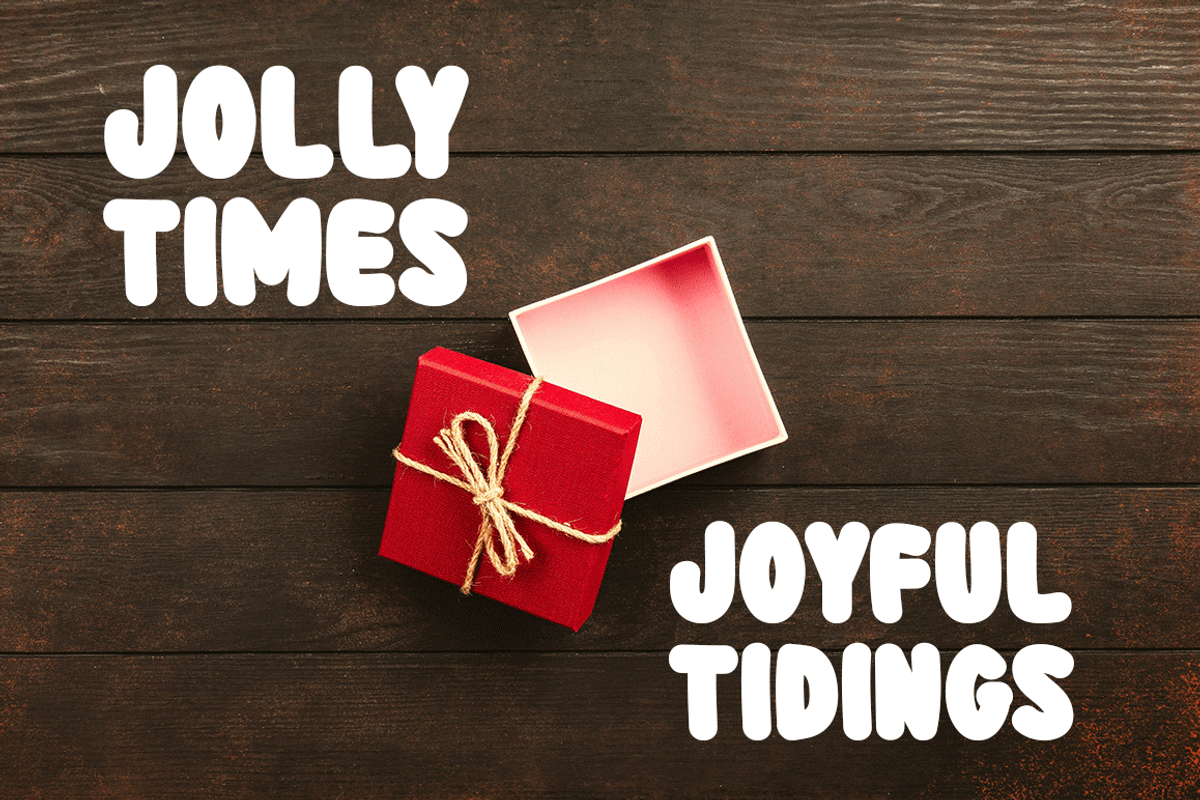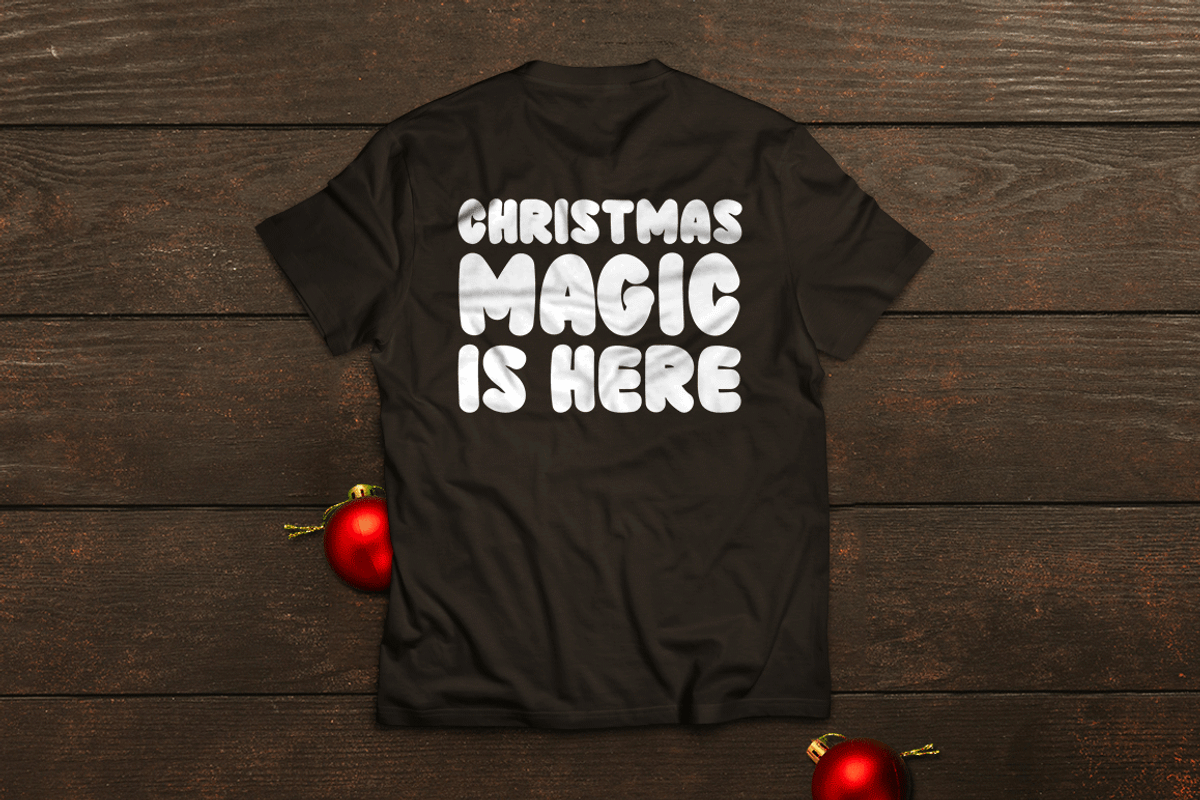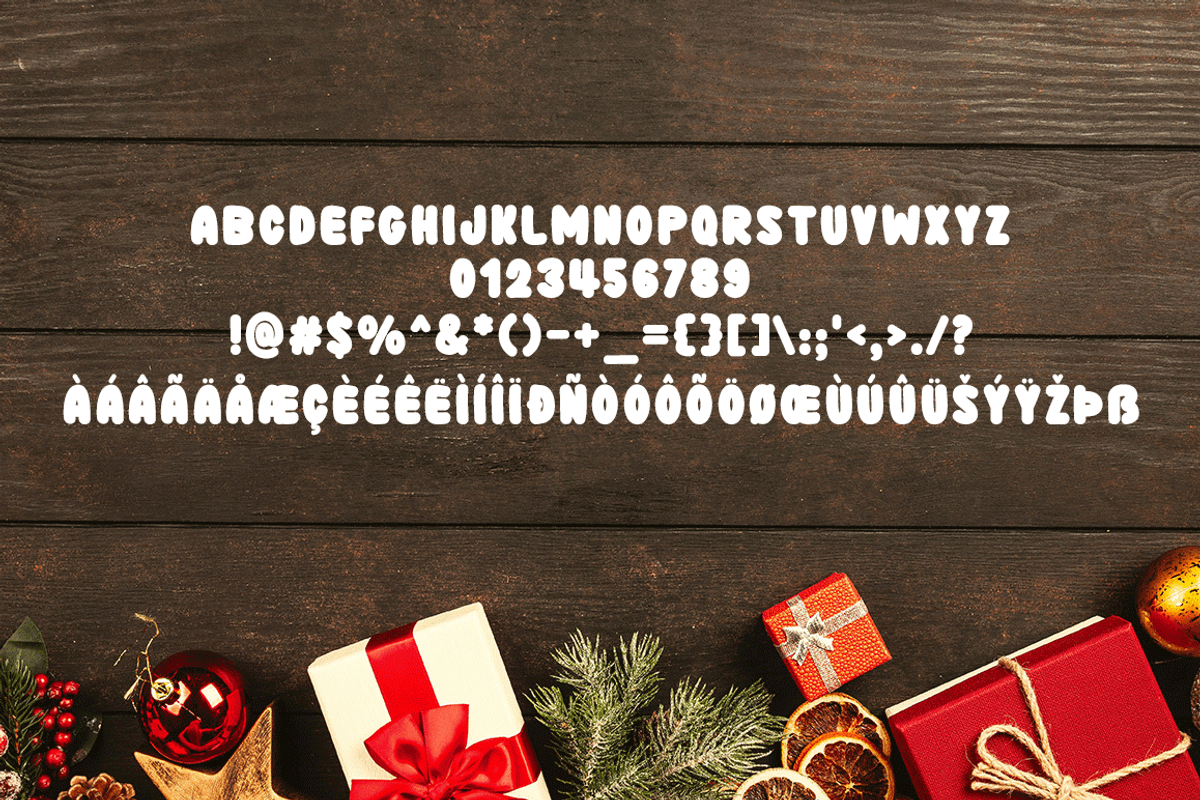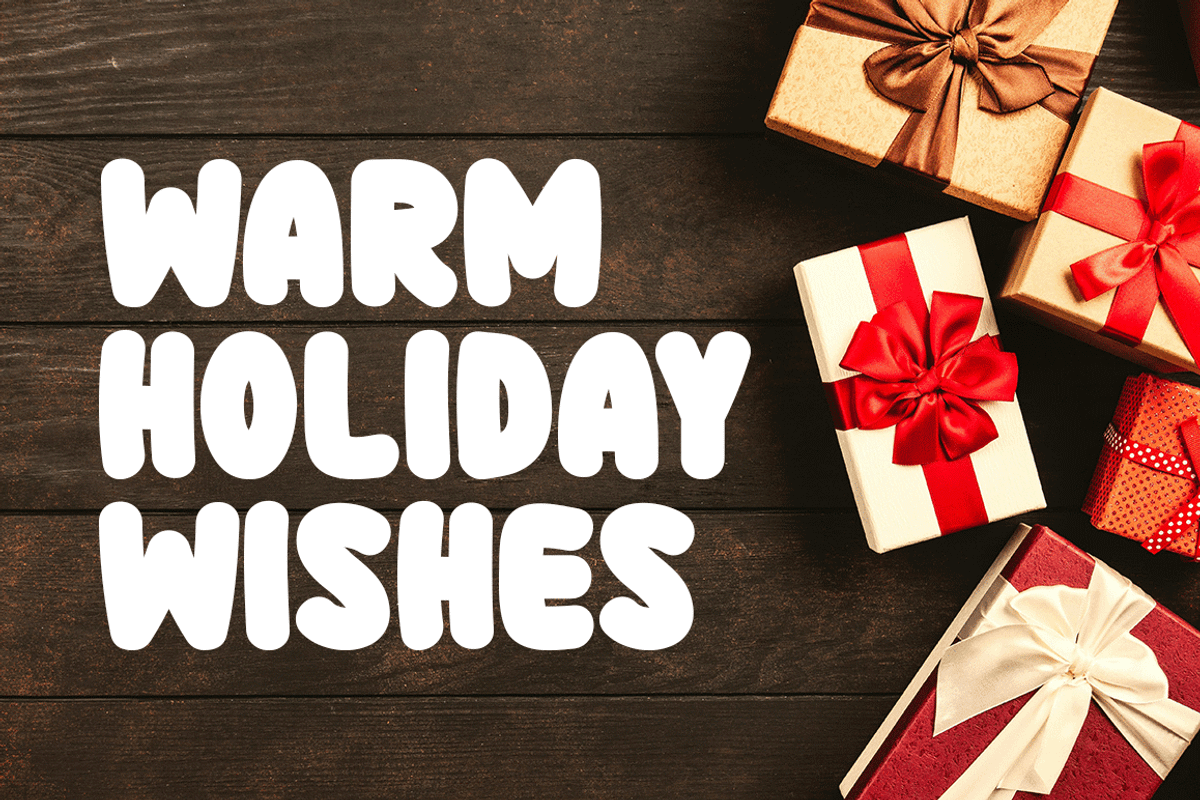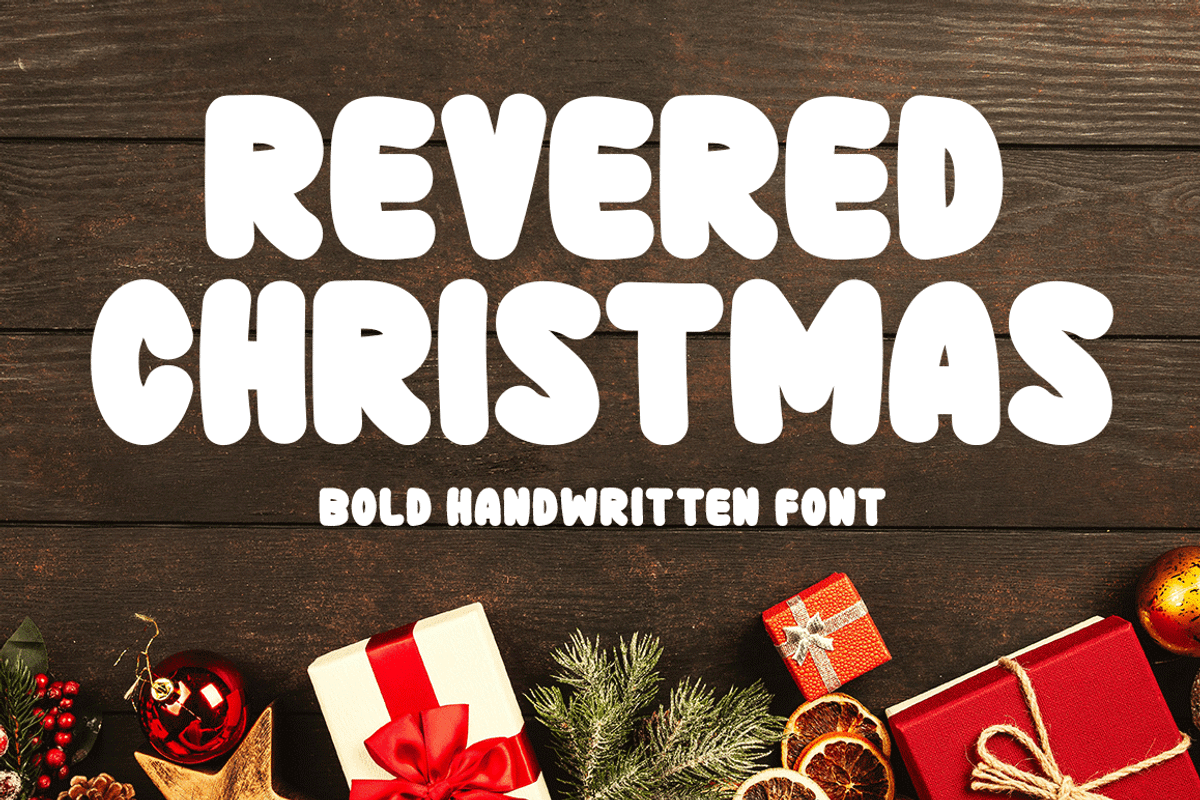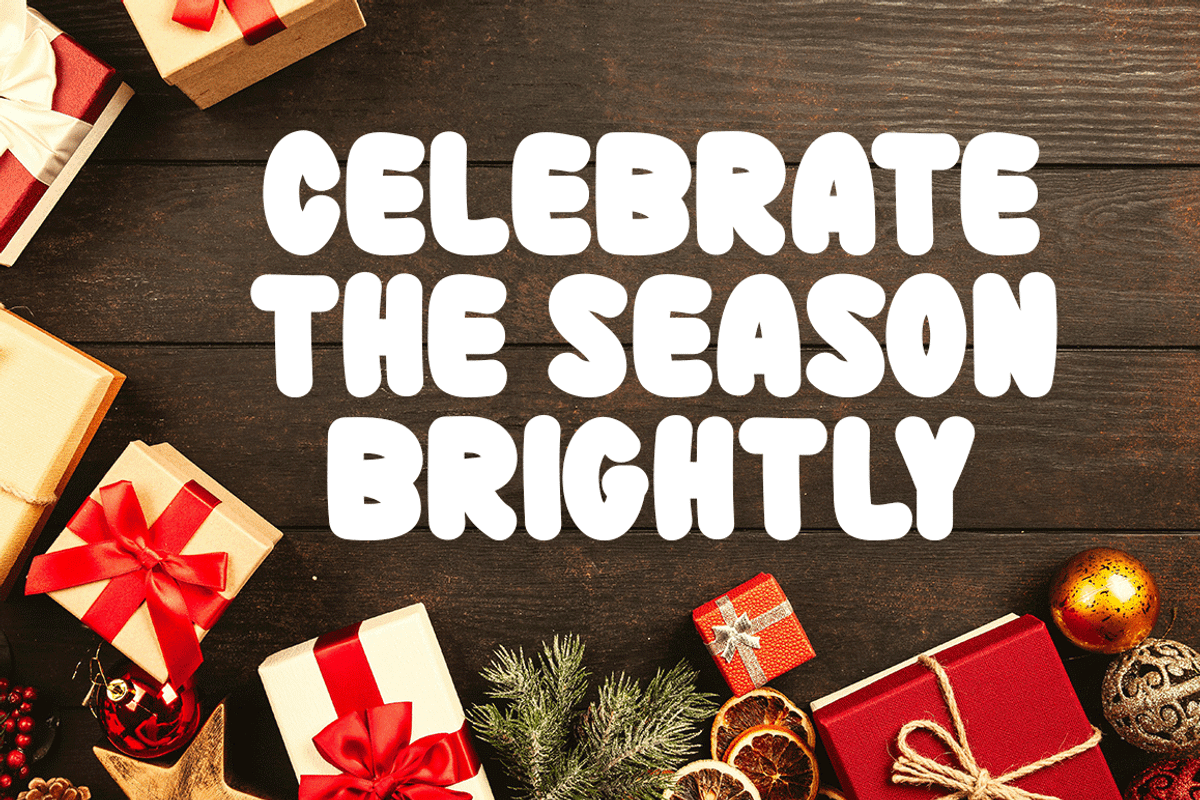
Revered Christmas Typeface
Introducing Revered Christmas!
With its eye-catching handwritten style, Revered Christmas is perfect for a variety of uses. To make your print designs, logos, t-shirts, and stationery stand out, use this bold typeface. Additionally, it’s ideal for improving image sliders, album covers, flyers, picture frames, posters, and website headers.
Includes a range of multilingual support